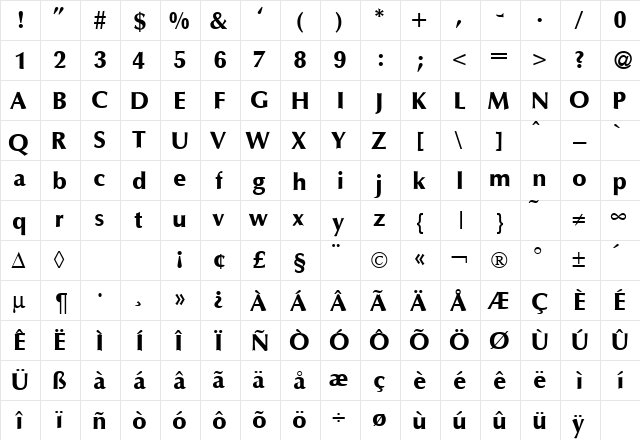
OpusTwoExtrabold Regular Font Preview
OpusTwoExtrabold Regular
Design Context for OpusTwoExtrabold Typeface
OpusTwoExtrabold is a composed and adaptable typeface that performs quietly and consistently across a wide range of design contexts. Its bold stroke weight gives it real presence on the page.